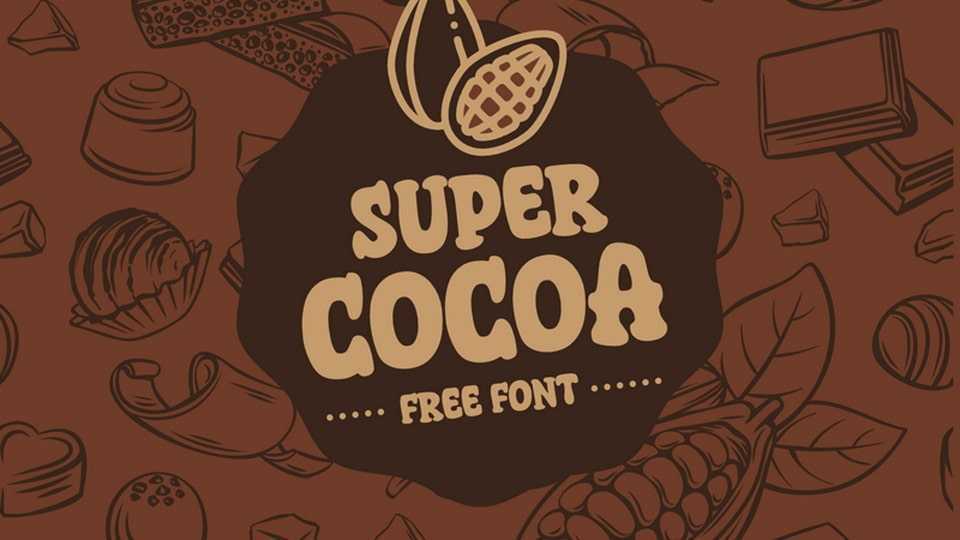
Download Super Cacao font, a hand-lettered comic typeface that captures the essence of classic cartoons. Super Cacao’s bold and expressive letterforms exude a sense of dynamic motion and lively emotion.